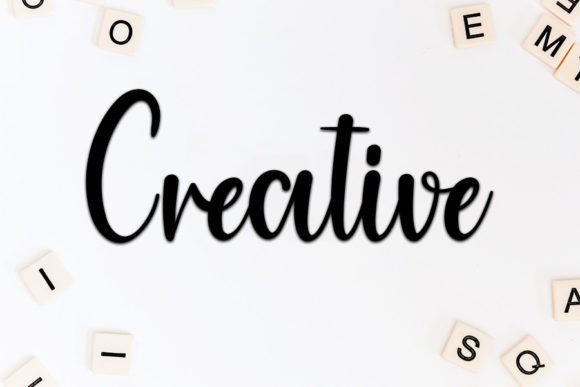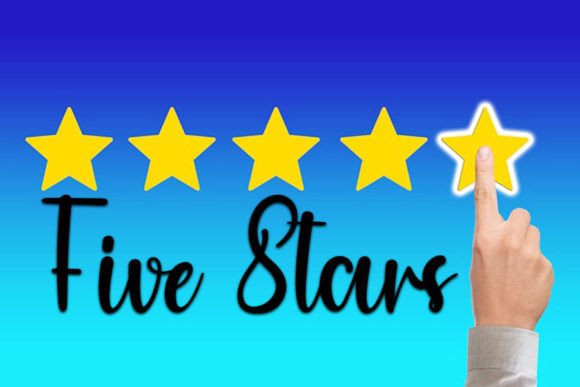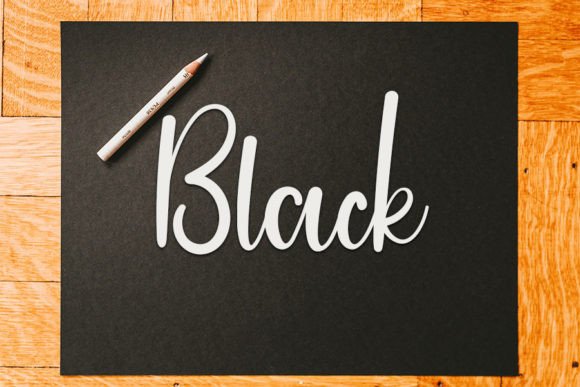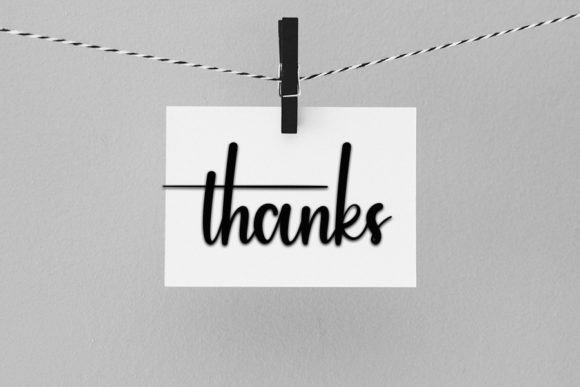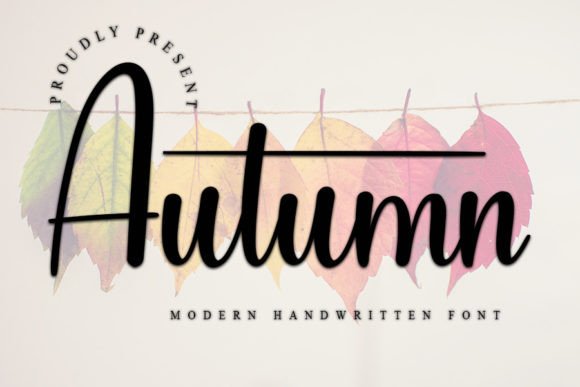
The Magic of Autumn Font: A Designer’s New Best Friend
I’ll never forget the time I was working on a project for a cozy fall-themed cafe, and I just couldn’t find the perfect font to capture the warmth and elegance of the season. The client wanted something that would make their menu and branding feel inviting and sophisticated, but everything I tried seemed either too generic or too over-the-top. That’s when I stumbled upon the Autumn Font, and let me tell you, it was love at first sight! ✨
So, what makes the Autumn Font so special? Here are a few things I absolutely love:
- ✨ Elegant and refined, with just the right amount of whimsy
- ✅ Incredibly versatile, from headings to body text
- 🌿 A beautiful, handwritten feel that’s perfect for fall and winter projects
- 📚 A wide range of OpenType features, including glyphs and stylistic alternates
- 🤔 Some of the more intricate glyphs can be a bit finicky in certain programs
- ⚠️ Not the best choice for very small text sizes, as some details can get lost
The Story Behind Autumn Font
While the true story behind the Autumn Font might be a mystery, it’s easy to imagine a designer sitting by a cozy window, surrounded by fall leaves and warm lighting, carefully crafting each letter and glyph. The result is a font that feels both timeless and seasonal – perfect for fall and winter projects! 🍂
| Q: What makes the Autumn Font so special? | A: The Autumn Font’s unique blend of elegance and whimsy makes it perfect for a wide range of design projects. |
| Q: Is the Autumn Font easy to read? | A: Yes, the Autumn Font is designed to be highly legible, even at smaller text sizes. |